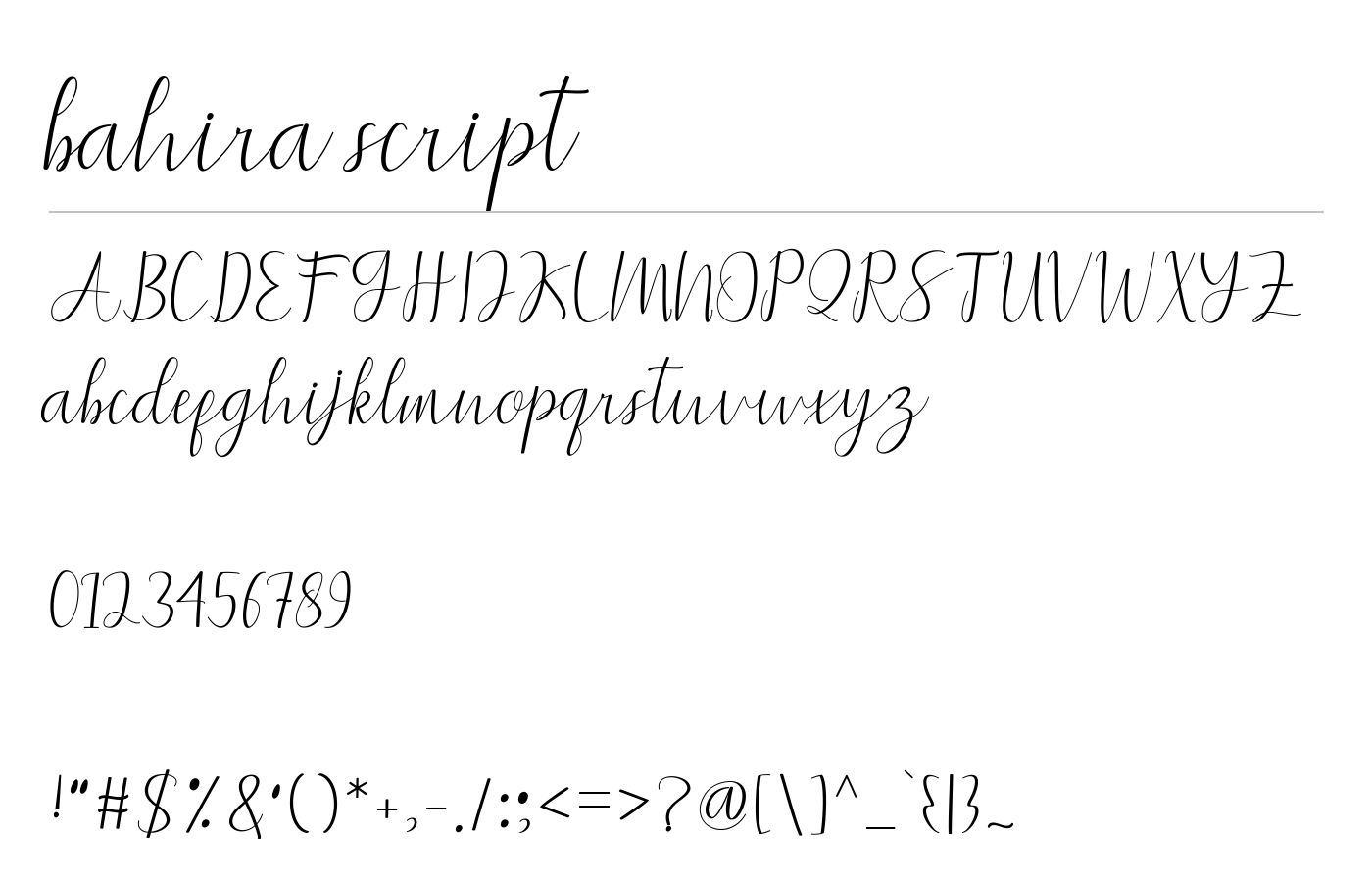
Bahira Script is an elegant, light-weight handwritten font featuring tall, slender letterforms with delicate, flowing strokes that create a refined and graceful appearance. Its smooth curves and subtle variations in line thickness give it a natural, artistic feel perfect for sophisticated branding, invitations, and feminine design projects. This font works beautifully in headlines and decorative text where a touch of charm and personal style is desired.